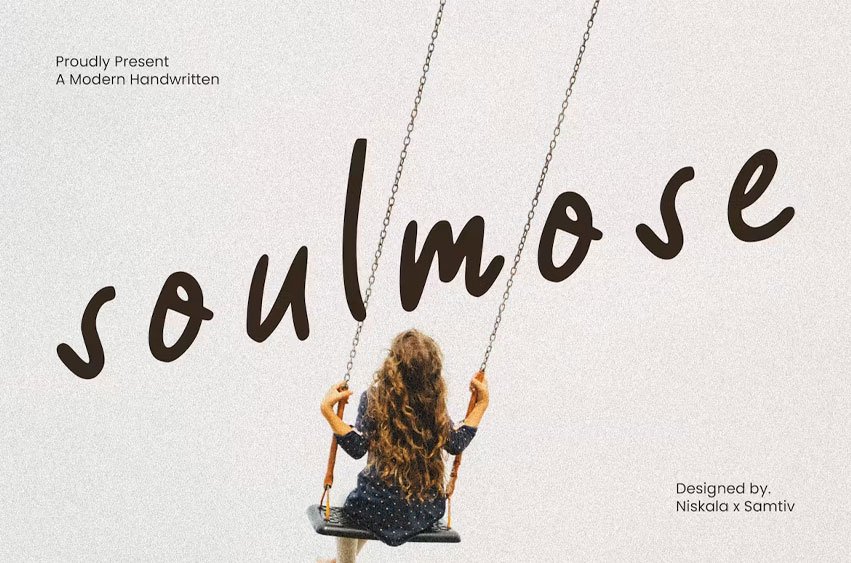
Soulmose Font is an awesome with modern cutouts, and a dynamic slant. Ideal for Poster titles, menu flyer, Packaging, Logo and monograms or other modern dynamic text. Soulmose compares favorably with legibility and size, creating the effect of power. Designed as a fast and dynamic font, but with a slightly different font design, check it out and grab it right away.
Soulmose Font Preview